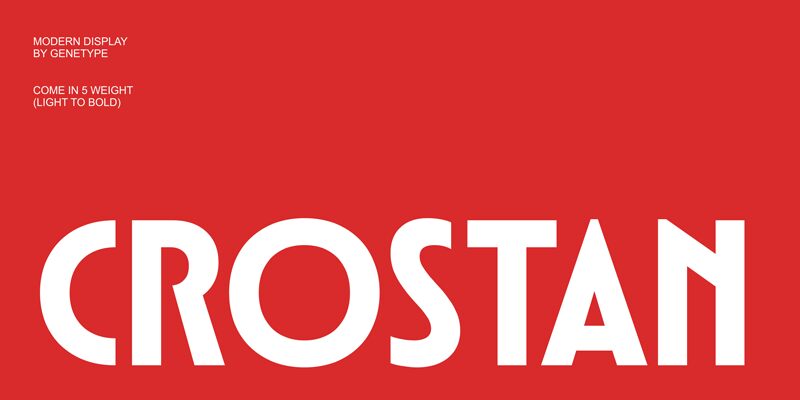
Crostsan font family by Genetypeco includes 10 diverse font styles. This free font family features minimalist geometric letterforms with a modern appeal. Its contemporary design is both clean and impactful, making it a robust and architectural visual solution for your design needs.
Crostsan can be used in eye-catching posters, banners, and advertising. It’s also suitable for book covers, typed shirts, websites, apps, branding, and packaging. Stats and reports, brochures, greeting cards, merchandise packages, and publications with short reading body text are also suitable candidates.